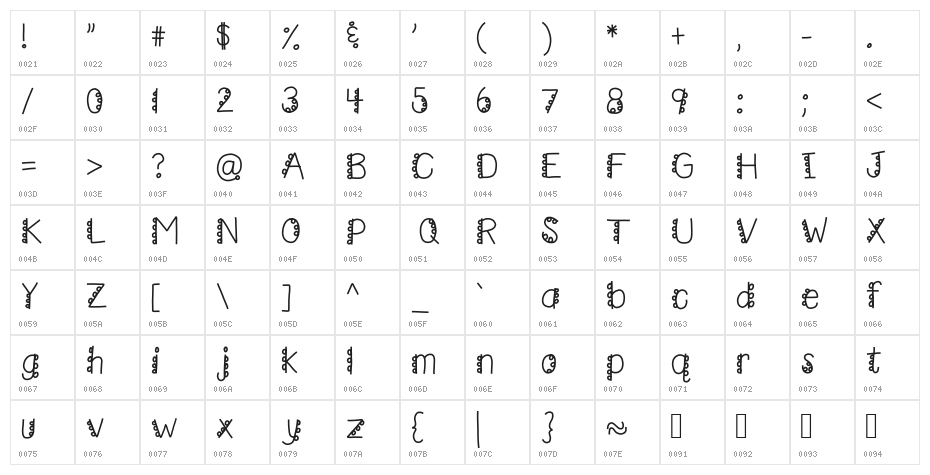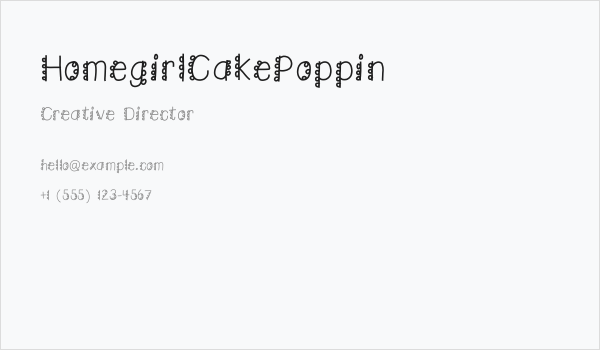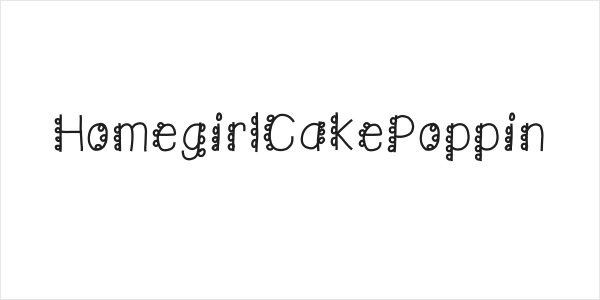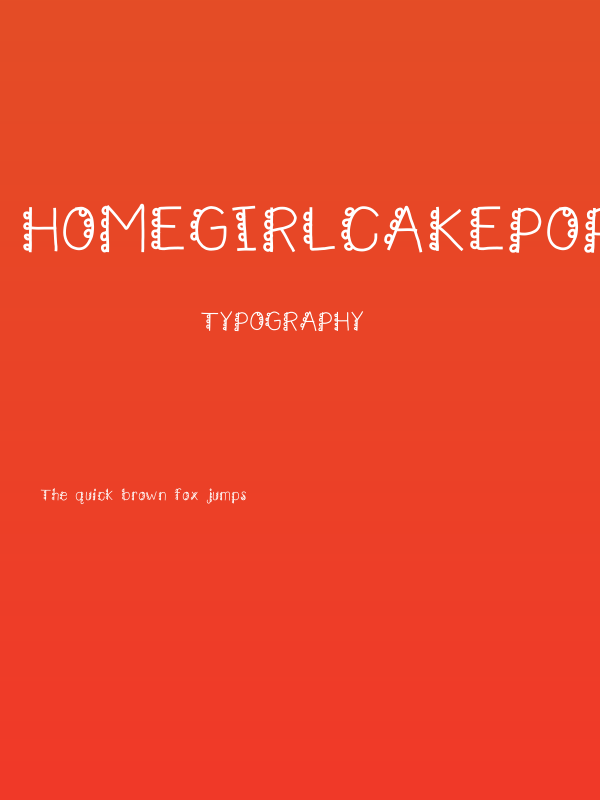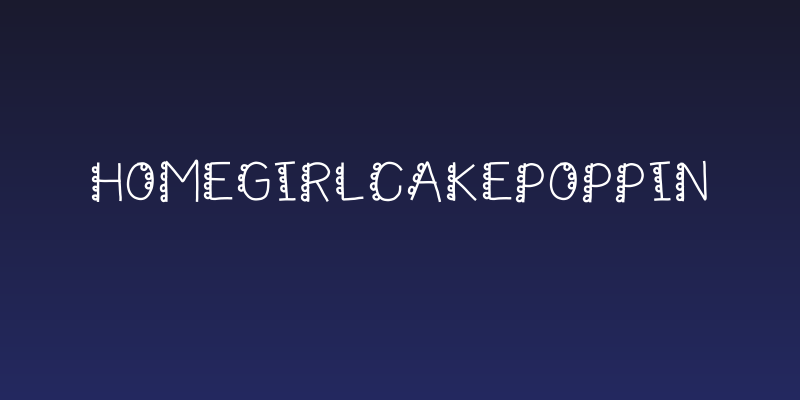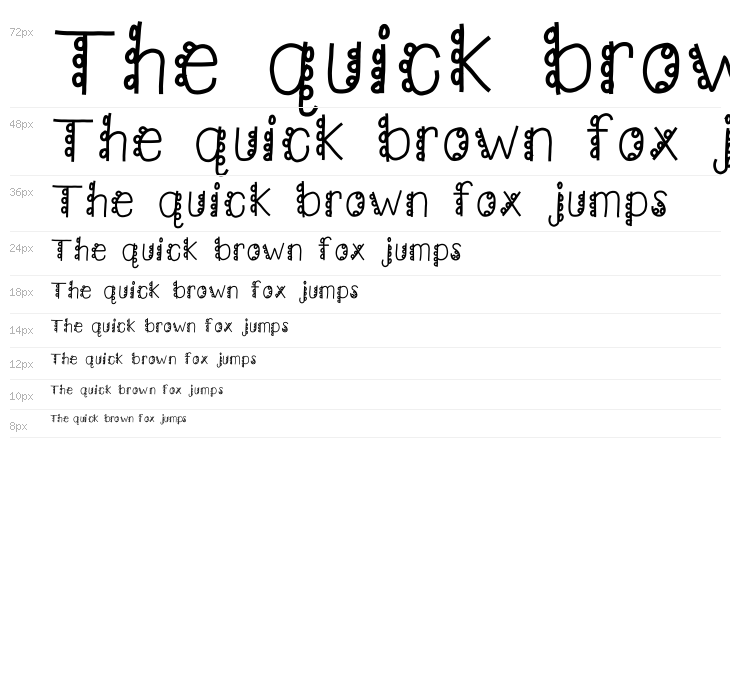
HomegirlCakePoppin Font
HomegirlCakePoppin Description
This playful and whimsical font features a unique design with circular embellishments on the ends of each letter, giving it a fun and decorative appearance. The characters are bold and slightly irregular, adding to the casual and lively feel. The font maintains a consistent stroke width throughout, with a medium contrast that enhances readability while preserving its quirky style. The numbers and special characters follow the same decorative theme, making it suitable for creative and informal projects.
| Overall Style | Whimsical |
| Proposed Projects | Ideal for children's book covers, party invitations, playful branding, and creative posters. |